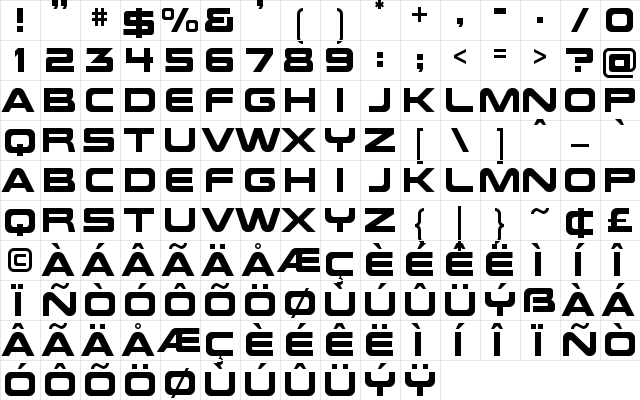
Future Earth Regular
Design Context for Future Earth Typeface
Future Earth has a distinctly futuristic character, with geometric precision and clean angles that feel at home in technology, gaming, and sci-fi contexts.
Pro Tip: Try Future Earth with generous letter-spacing in UI labels and navigation — the geometric forms benefit from room to breathe.